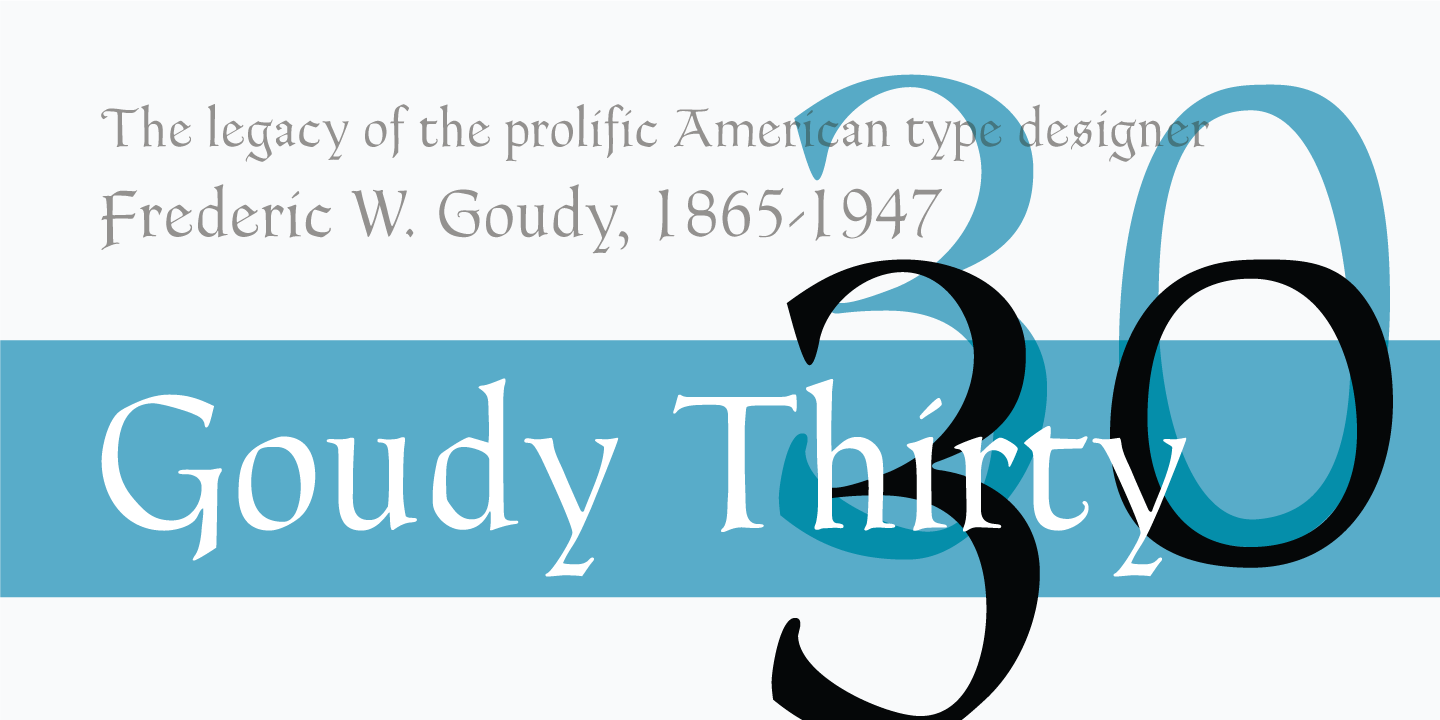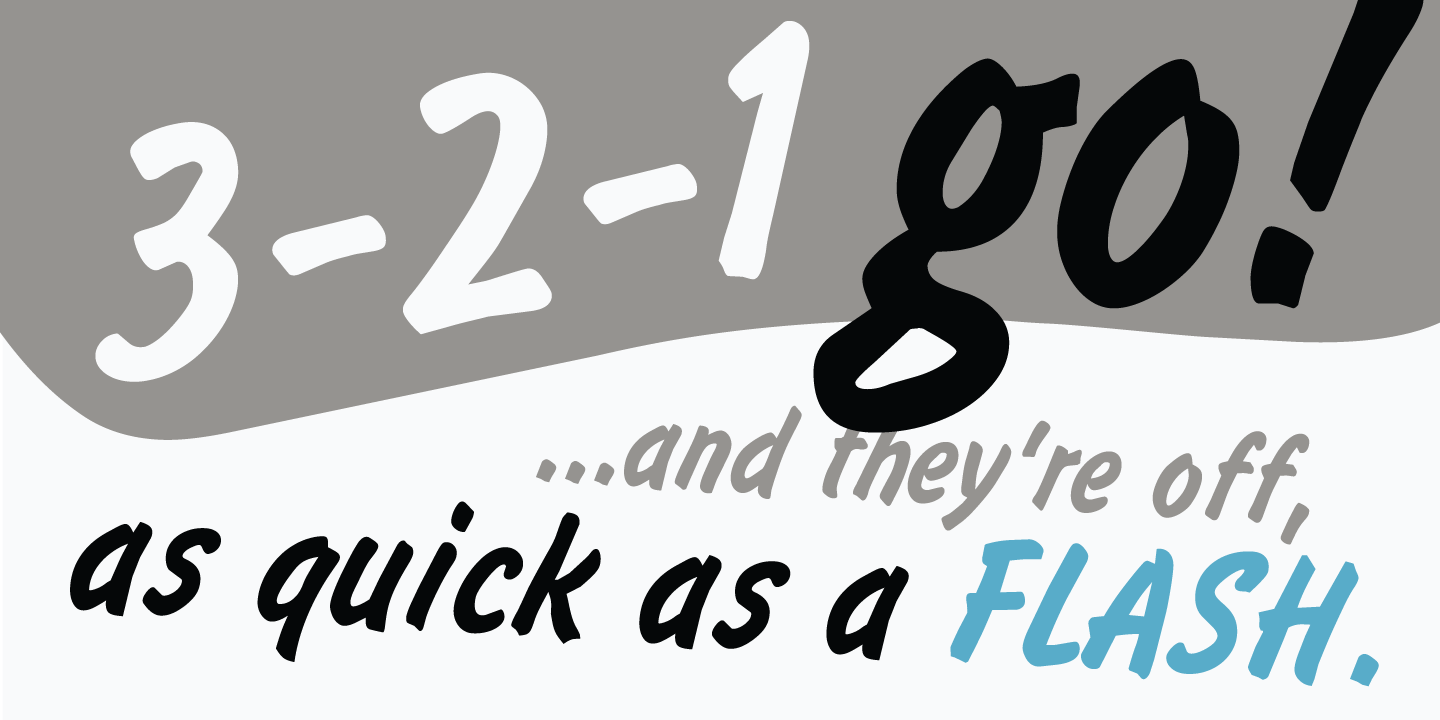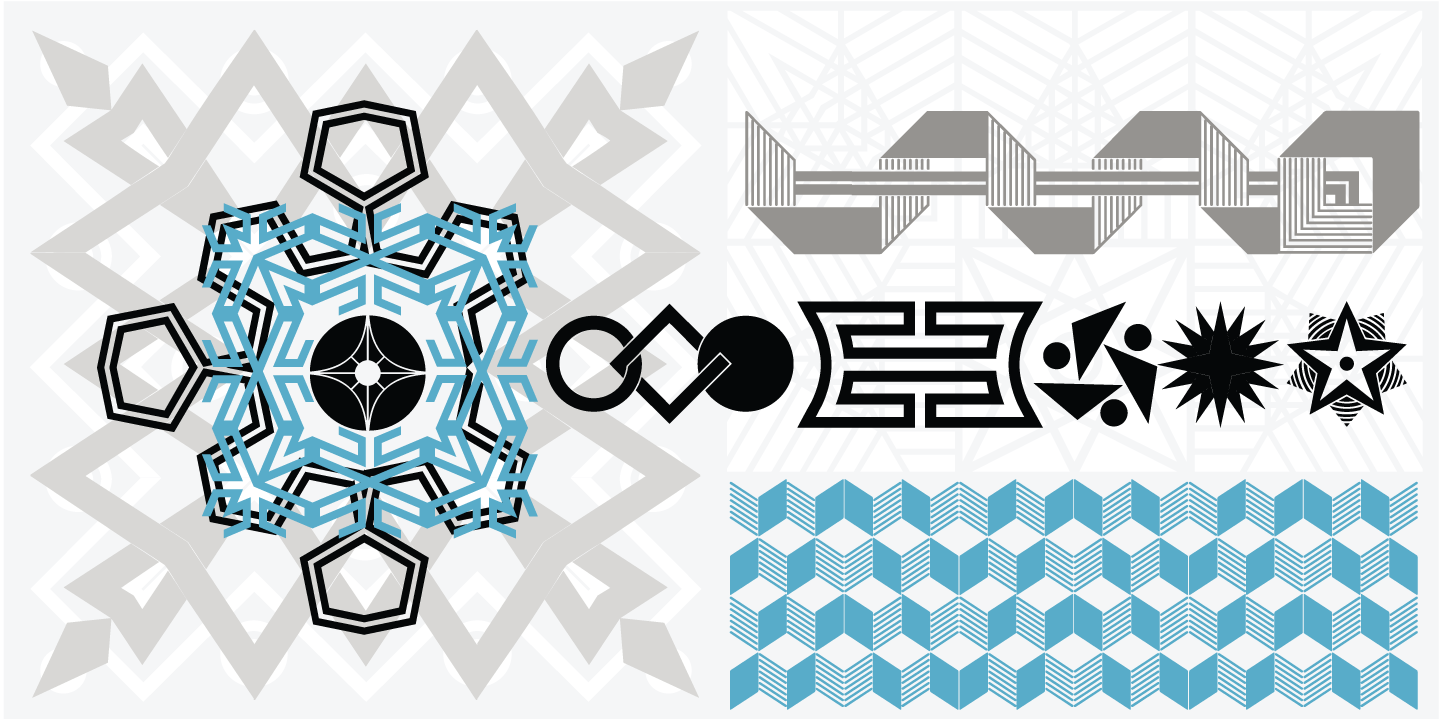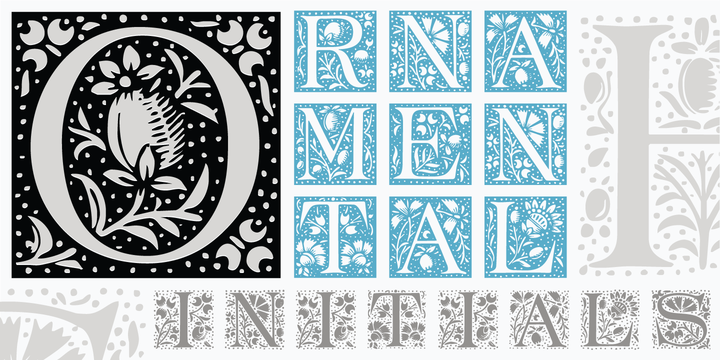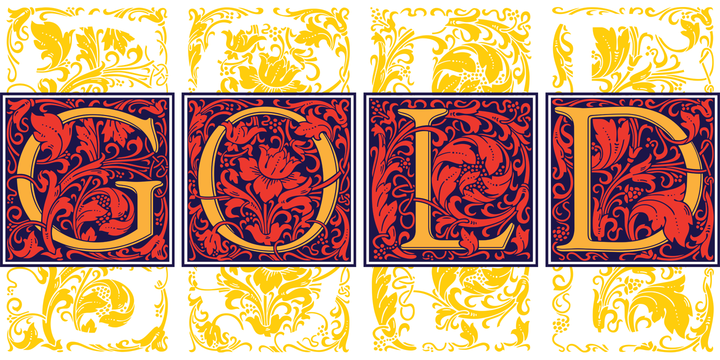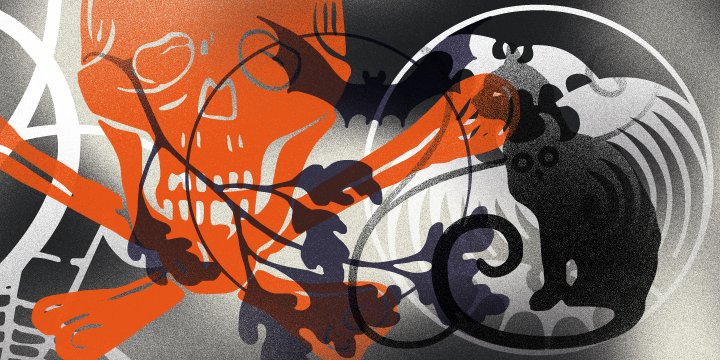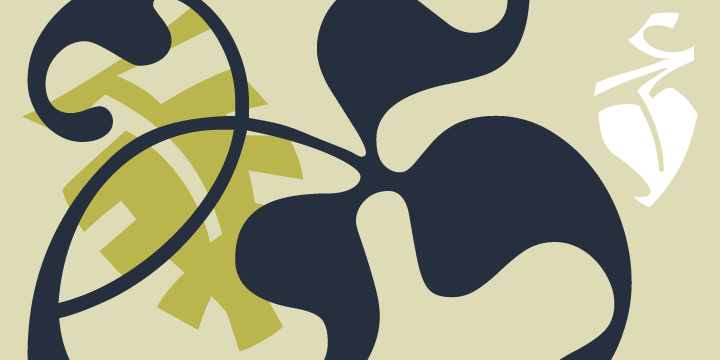
The Lanston Monotype Company was founded in Philadelphia at the end of the nineteenth century by Tolbert Lanston. In 1887 he received his first patent for a mechanical typesetting device. Later refinements led to the Monotype casting machine and the emergence of the Lanston Monotype Company as one of the most renowned type supply companies in the world. The Monotype caster was revolutionary and along with other automated typesetting machines helped to usher in a new age of printing technology. Typesetting had, until this time, remained the same as Gutenberg’s first hand-set movable type.
In the late 1800s, Tolbert Lanston licensed his technology to an English sister company and became a major international force, competing with the Mergenthaler company, whose “Linotype” was a slightly different approach to the same problem. Both cast type from molten lead alloy on demand, fresh for each job, then recycled it. But whereas the Linotype cast whole lines (or ‘slugs’) at a time, the Monotype cast single letters, composing them into a page with an action that is a joy to behold. (Since they produce individual pieces of type, Monotype machines can also be used to make type for hand composing.)
Lanston Monotype grew rapidly with America’s pre-eminent type designer Frederic Goudy as art director from 1920 to 1947. The type library was directed by Sol Hess, who also designed some of the typefaces.
The Philadelphia-based company eventually parted ways with its English counterpart. The thriving English Monotype became simply known as Monotype. By contrast Lanston went through mixed fortunes and lost ground to Mergenthaler. A long-lasting labor dispute interfered with production and servicing of the Monomatic – an “absolutely incredible typesetting machine” according to the man who would later own the company, master printer Gerald Giampa. Customers were upset, and the firm was sold on several times until American Type Founders bought it in 1969. Giampa continues the story: “They stopped manufacturing casters because they had always competed with their foundry sales. Then it became a department of Hartzel Machine Works that also manufactured moulds and re-built casters. Then on to Mackenzie and Harris, a type foundry in San Francisco, then purchased by myself and re-located in Vancouver. A little known fact this is the second time that Lanston has been Canadian-based. Once previous to ATF.” Giampa moved Lanston to Prince Edward Island in 1988.
Lanston continued supplying the American market for monotype casters until January 21, 2000, when the hot-metal component of Lanston was tragically destroyed by a tidal wave. After this time Giampa, who was one of the earliest developers of PostScript fonts, focussed much more on digitization. Under his stewardship, Lanston’s classic faces were digitized in a style that was true to the sources, which are the brass and lead patterns from which the metal type was made. The company relocated to Finland, then back to Canada.
In November 2004 P22 type foundry of Buffalo, NY acquired Lanston Type. P22 studios will re-master Lanston’s fonts, including the classic designs of Frederic Goudy and Sol Hess, along with newer designs by such contemporary masters as Jim Rimmer, Dave Farey, and Gerald Giampa himself. The addition of Lanston type fills a gap for text fonts in the P22 type libraries which, until now, have focused on display and decorative types. Lanston is a distinct division of P22 alongside International House of Fonts (IHOF) and the Sherwood Collection.